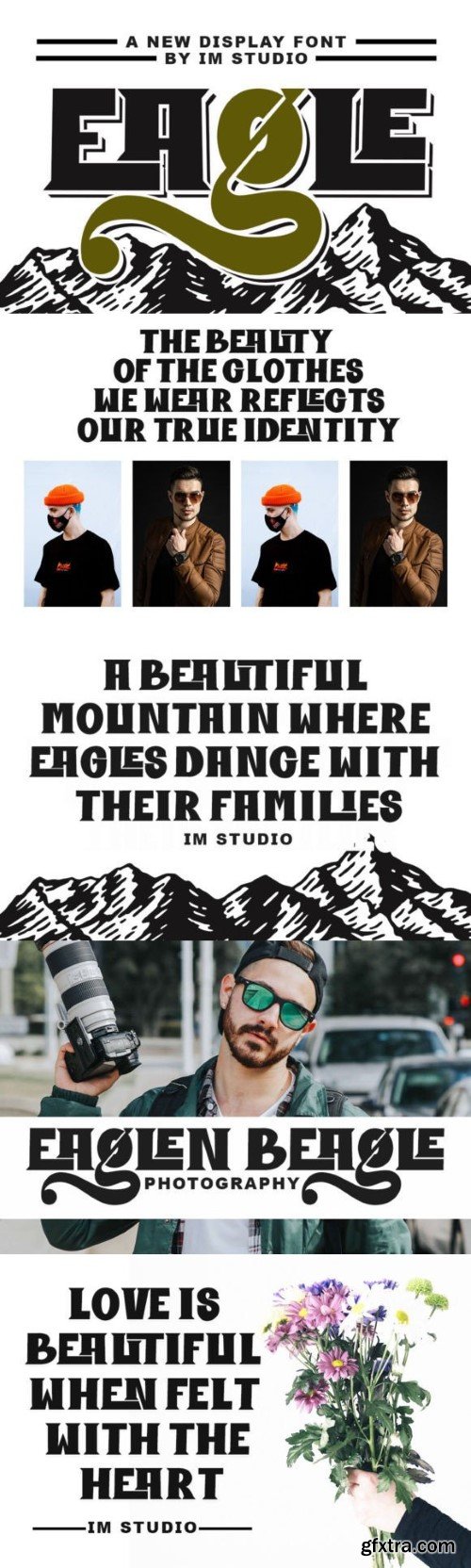
鹰字体
Eagle is a playfully nostalgic display font. Use it to add that special retro touch to any design idea you can think of! Masterfully designed to become a true favorite, this font has the potential to bring each of your creative ideas to the highest level!